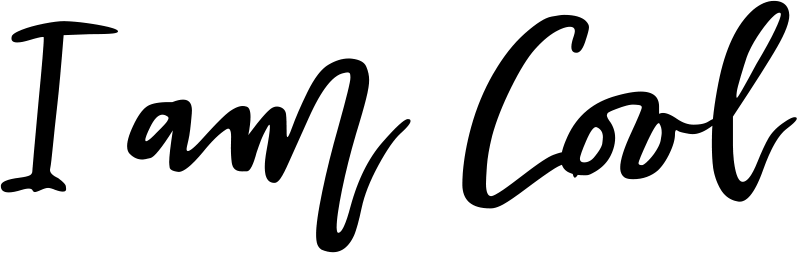
Glamatrix Font
If you are after a script font for your text design, we’ve got you covered. Glamatrix comes in medium and curly characters and works flawlessly for cosmetic products, branding, logos, and many other things. It brings a positive and neat vibe to your project. Just give it a shot and see how stunning it goes!